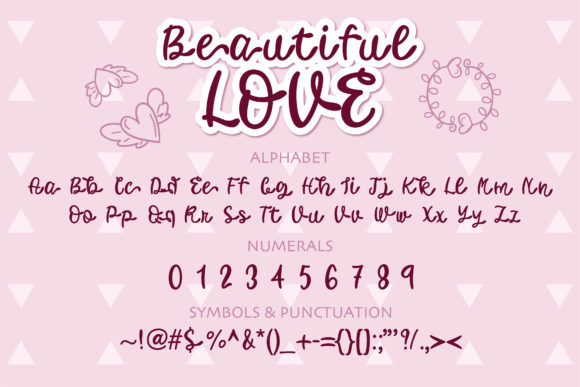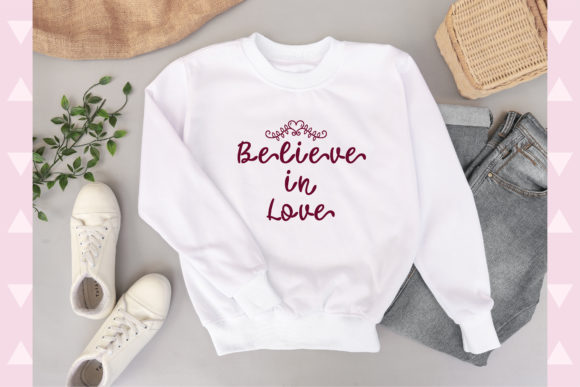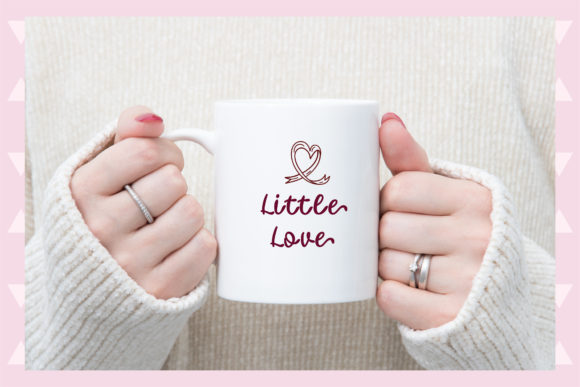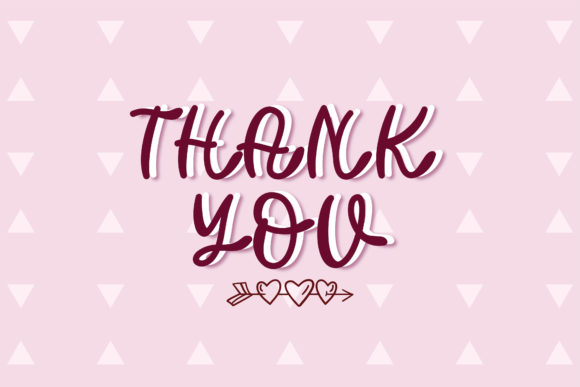
The Perfect Font for Love and Romance
Have you ever found yourself staring at a blank page, searching for the perfect words to express your feelings to that special someone? The struggle is real, but the solution is simpler than you think. A beautiful font can make all the difference in conveying your emotions and making your message truly special.
Enter the Beautiful Love Font, a stunning calligraphy typeface that exudes romance and elegance. This gorgeous font is perfect for adding a touch of whimsy to wedding invitations, thank you cards, and quotes, making it a valuable asset for designers looking to create unique and customized designs. With its natural and unique style, the Beautiful Love Font is an essential tool for anyone looking to add a little extra love to their designs.
Beautiful Love Font Key Features
- Font Family: Beautiful Love Font, a beautiful and elegant script font designed for romantic and creative projects.
- Unique Characteristics: Features intricate and flowing connections between letters, giving it a romantic and whimsical feel.
Designer Review: Beautiful Love Font
Overall, I think the Beautiful Love Font is a lovely addition to any design project. ✨ The font’s elegant and romantic vibe makes it perfect for creating a sense of whimsy and sophistication in your designs.
- The font’s flowing lines and curved shapes create a beautiful, hand-drawn feel that’s perfect for creating a sense of warmth and personality in your designs.
- The font’s condensed form can make it difficult to read at very small sizes, especially in text-heavy designs.
- The font’s romantic vibe may not be suitable for all design projects, particularly those that require a more modern or edgy aesthetic.
Overall, I think the Beautiful Love Font is a lovely choice for designers who want to add a touch of elegance and romance to their projects. With a little caution and consideration of the font’s limitations, I think it can be a valuable addition to any design toolkit.